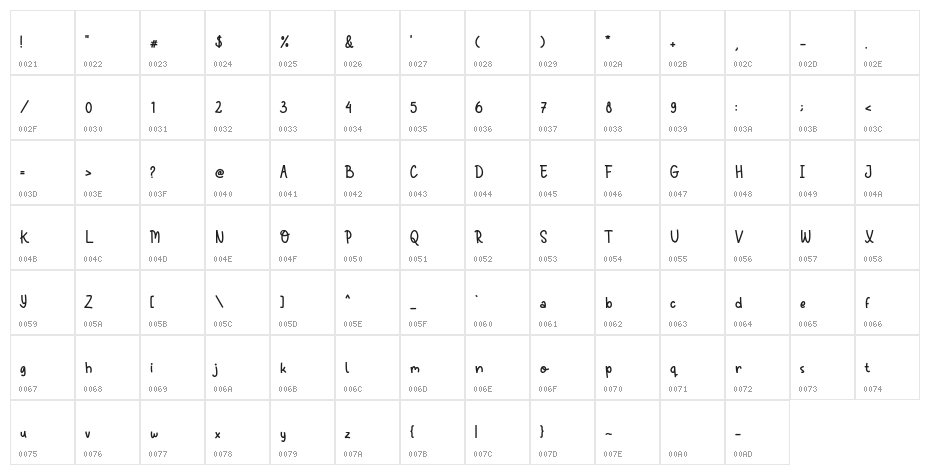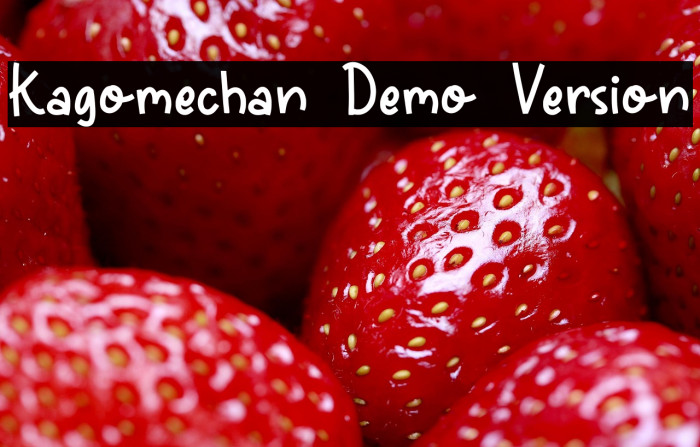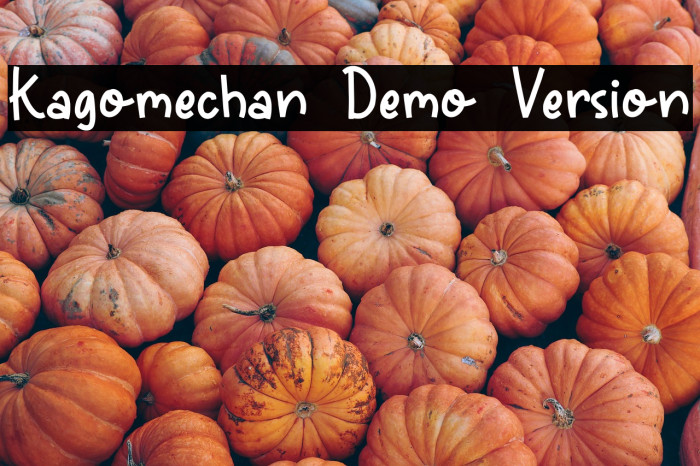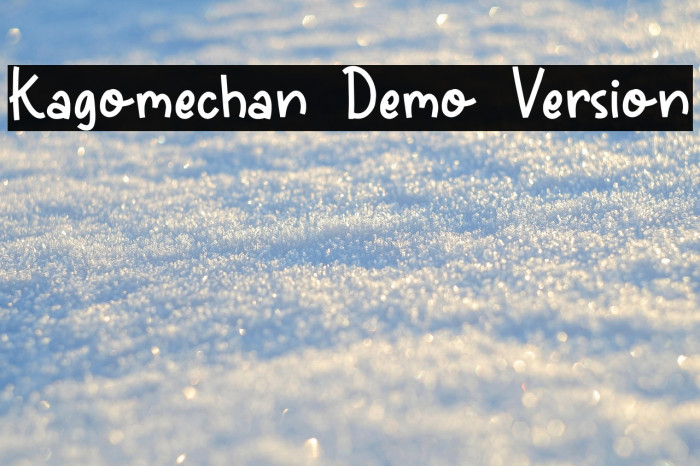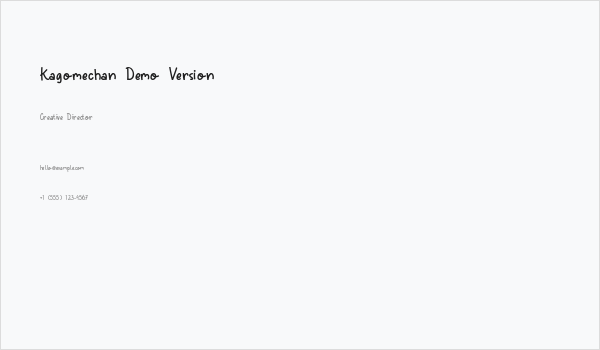
Kagomechan Demo Version Font
Kagomechan Demo Version Description
This playful and whimsical font features a handwritten style with a casual and friendly appearance. The characters are slightly irregular, adding a personal touch to the text. The uppercase letters are bold and rounded, while the lowercase letters maintain a consistent flow with a slightly slanted orientation. The numerals are clear and easy to read, matching the overall style of the alphabet. Special characters are included, maintaining the same playful aesthetic. This font is ideal for projects that require a fun and approachable look, such as children's books, invitations, or casual branding.
| Proposed Projects | Children's books, invitations, casual branding, greeting cards. |